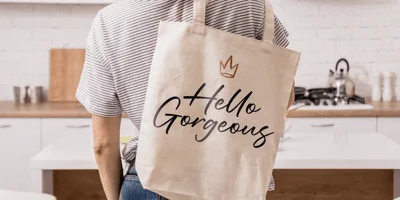
Animal Chariot Font
Animal Chariot Font is ideal for zoo branding, animal rescue organizations, wildlife conservation campaigns, veterinary clinic materials, children's educational books, nature documentary titles, safari tour promotions, pet store identity, animal-themed entertainment, and wild applications that celebrate the majestic beauty and natural wonder of the animal kingdom.
What makes Animal Chariot Font truly exciting is its dynamic capture of animal energy and natural movement that brings the wild spirit and untamed beauty of nature's creatures directly into typography design. This exceptional typeface embodies the essence of animal grace with its flowing letterforms and creature-inspired character that convey both natural power and wildlife authenticity. The font's wild personality and animal-spirited design make it perfect for organizations and projects seeking to communicate wildlife protection, natural beauty, and the inspiring connection between humans and the magnificent creatures that share our planet.
The Animal Chariot Font family includes multiple weights and styles: Light, Regular, Medium, Bold, and Wild variations designed for maximum animal impact. Each family member maintains the distinctive creature-inspired character while offering flexibility for diverse wildlife applications and animal-focused branding systems. The comprehensive character set supports nature typography needs and wildlife design elements, making it suitable for international conservation communications.
When you choose Animal Chariot Font, you're selecting a typography safari that delivers authentic wildlife credibility and natural kingdom excellence. This spirited typeface excels in applications where animal connection and wildlife authenticity are essential, delivering exceptional natural appeal while maintaining creature credibility. Whether you're designing wildlife brands, conservation campaigns, educational materials, or animal-focused projects, this font provides the wild authenticity and natural majesty that resonates with animal lovers who appreciate wildlife protection, natural beauty, and the transformative power of connecting with the incredible diversity of our planet's magnificent animal kingdom.